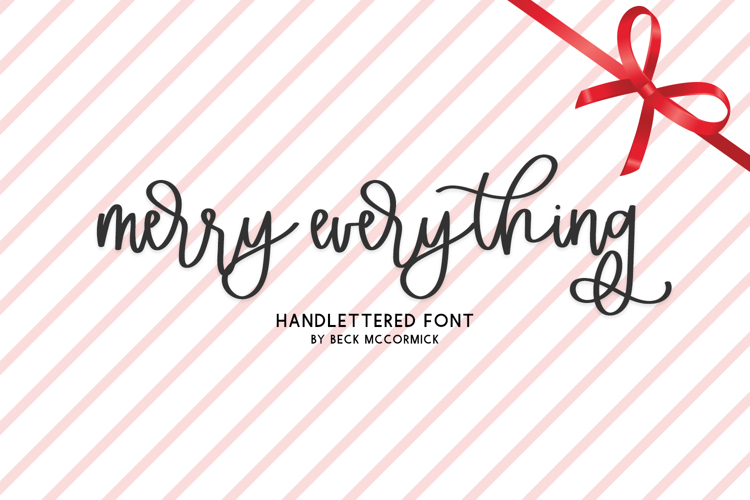
Merry Everything Script
Introducing Merry Everything Script, a cute & bouncy handlettered modern calligraphy script. Merry Everything Script features 20 alternates & 28 ligatures to enhance the handwritten look & feel of your project.
Merry Everything Script is best for:
- feminine, crafty projects with your Cricut or Silhouette machine, or your SVG design business
- Christmas or other holiday themed items like greeting cards or gift tags
- farmhouse decor and crafts
- digital planners & apps like Goodnotes
- website design + website accents, blog design
- feminine graphic tee shirt design & other apparel
Merry Everything Script includes:
- 20 alternates
- 28 ligatures - ar, ax, bb, cc, co, cr, dd, ee, er, ff, fl, fr, gr, ir, ll, lk, mm, nn, oo , or, pp, rr, rr, ss, th, tr, tt, ur